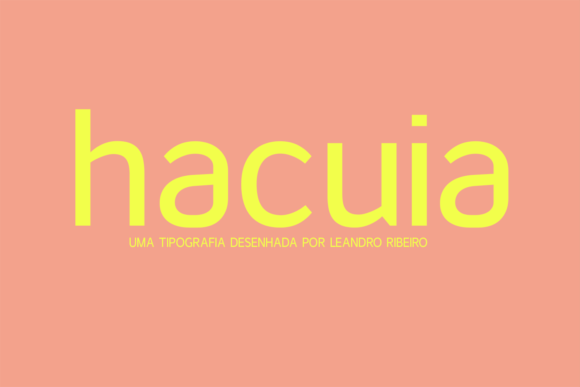
Uncover a Font Gem: Hacuia - Your Gateway to Unparalleled Versatility
In a world of monotonous fonts, Hacuia emerges as a beacon of innovation, versatility, and sophistication. Its sans serif charm dances across a wide array of applications, seamlessly adapting to your creative vision. Whether you're crafting book texts, shaping documentation, composing business reports, or engaging in corporate design, Hacuia stands as your steadfast companion.
Hacuia's adaptability extends to the vast realm of multimedia, where its presence adds a touch of elegance and professionalism. Unleash your creativity in magazines, newspapers, posters, and advertisements, knowing that Hacuia will elevate your messages with its timeless appeal.
Dive into the world of packaging and let Hacuia captivate your audience. Its distinctive character adds an extra layer of allure to your products, enticing customers with its modern and captivating aesthetic. Hacuia's ability to convey both sophistication and playfulness makes it the ideal choice for businesses seeking to leave a lasting impression.